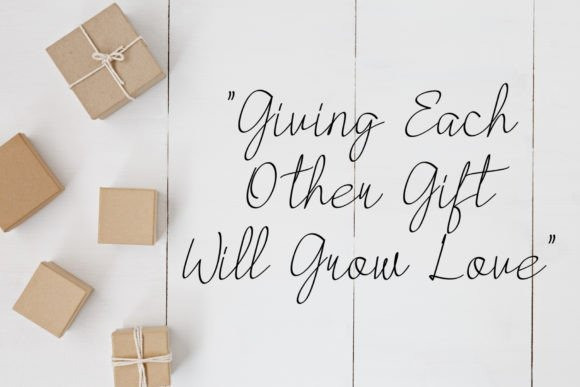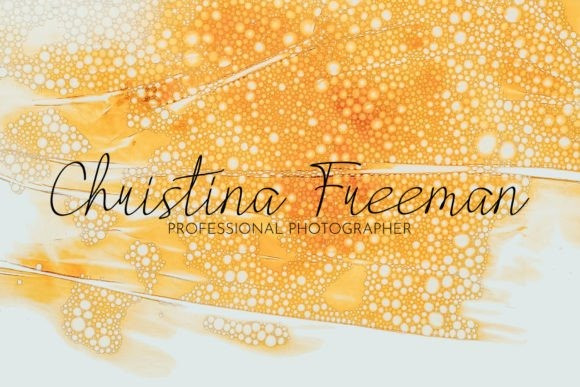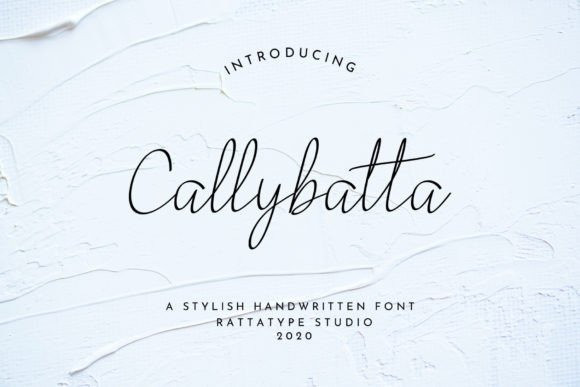
Callybatta Handwriting Font
Callybatta Handwriting Font is very fashionable and elegant for use in photography, weddings, signatures, fashion tag lines, food and beverage, logos, and others